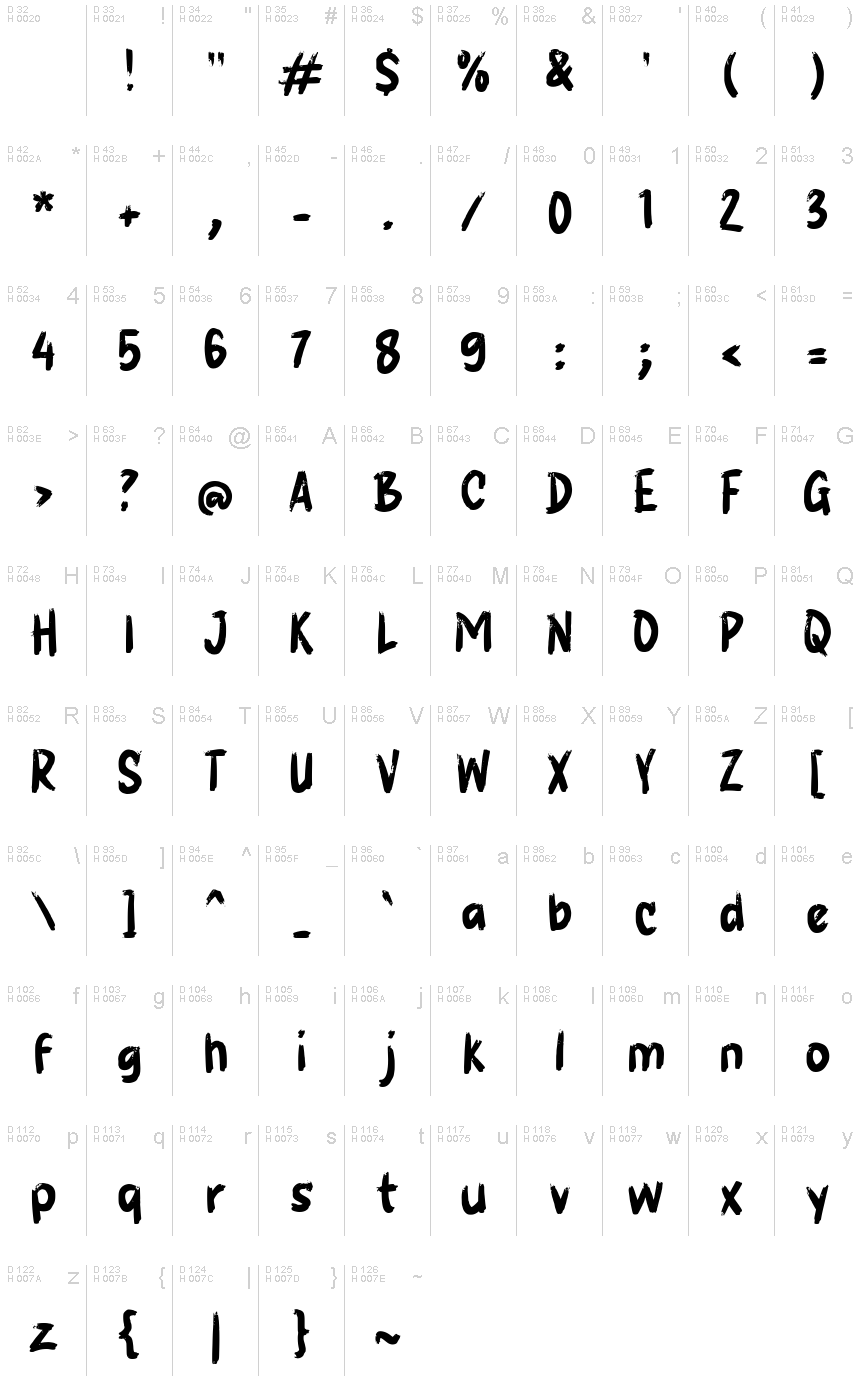
Golek Sepuro
Crafted by designer wep, Golek Sepuro is a brush-style font that captivates with its dynamic and rugged aesthetic. The bold, expressive strokes exude an artisanal charm, reflecting a hand-painted essence that sets it apart in any design toolkit. Each character boasts a playful yet chaotic energy, making it perfect for projects that seek authenticity and vibrancy.
Golek Sepuro finds its versatility in various creative contexts-be it branding for artisanal goods, event posters, or eye-catching headlines. Its robust appearance commands attention while maintaining an approachable and artistic flair. For designers aiming to infuse their work with a distinctive personal touch and energetic vibe, Golek Sepuro stands out as a compelling choice.